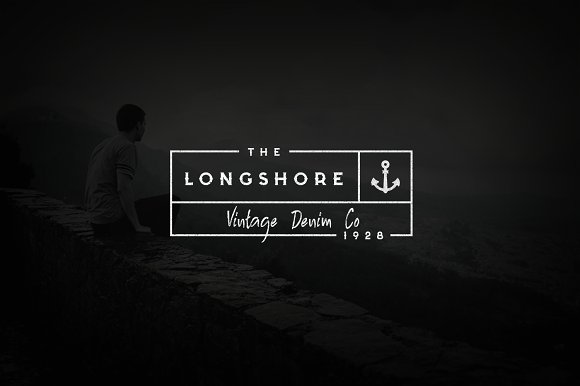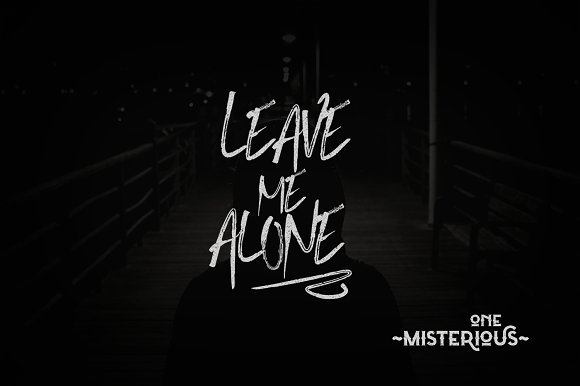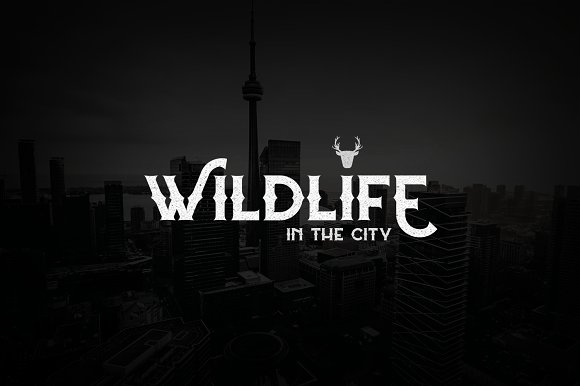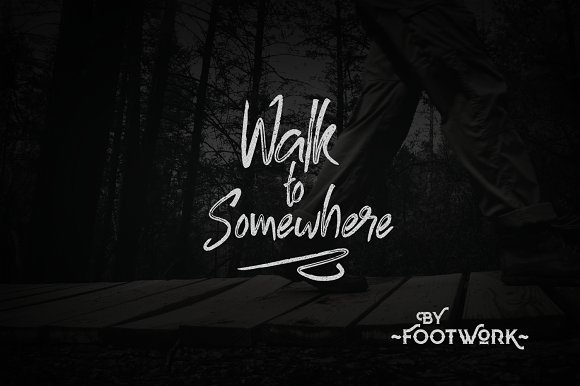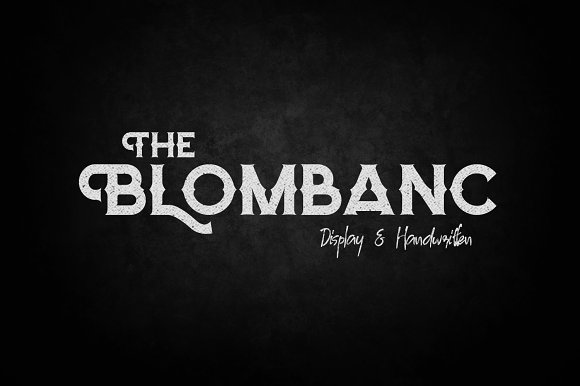
Blombanc Font Duo
Blombanc Font Duo is a display and handwritten typeface. It is suitable for any design needs, branding, cover title, t-shirts, posters and more.
Blombanc Font Duo includes multi-lingual and currency support, numerals, and punctuations. It comes comes with stylistic alternates, ss01, ss02.